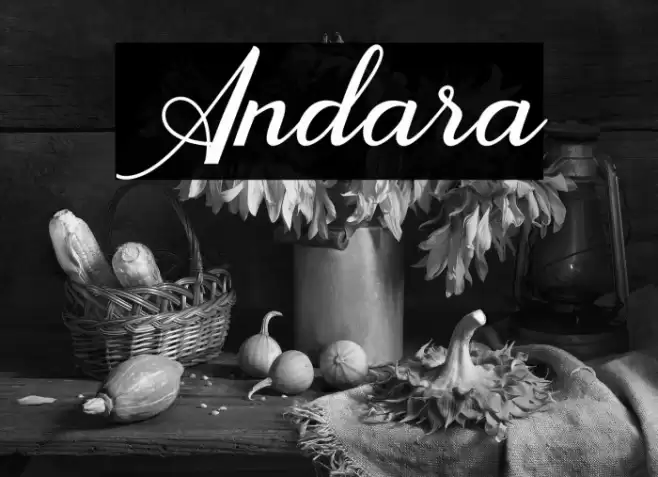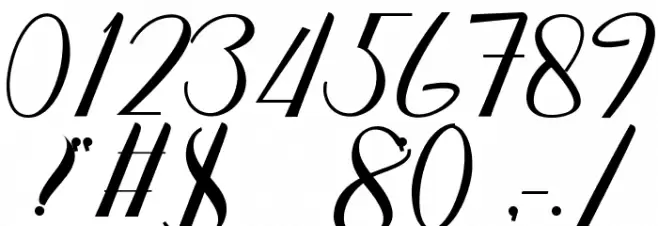
Andara Font
Andara Description
This elegant script font features a sophisticated and flowing design, characterized by its graceful curves and loops. The uppercase letters are adorned with delicate swashes, adding a touch of flair and refinement. The lowercase letters maintain a smooth and connected style, ideal for creating a seamless and fluid appearance. The numerals are stylishly crafted, complementing the overall aesthetic. Special characters are thoughtfully designed, maintaining the font's cohesive look. This font exudes a sense of elegance and charm, making it suitable for a variety of creative applications.
An elegant script font with graceful curves and decorative swashes from Uncategorized fonts.
- Proposed Projects: Ideal for wedding invitations, branding, greeting cards, and elegant packaging.
- Overall Style: Elegant
- Use Case: Logos, Invitations, Decorative text